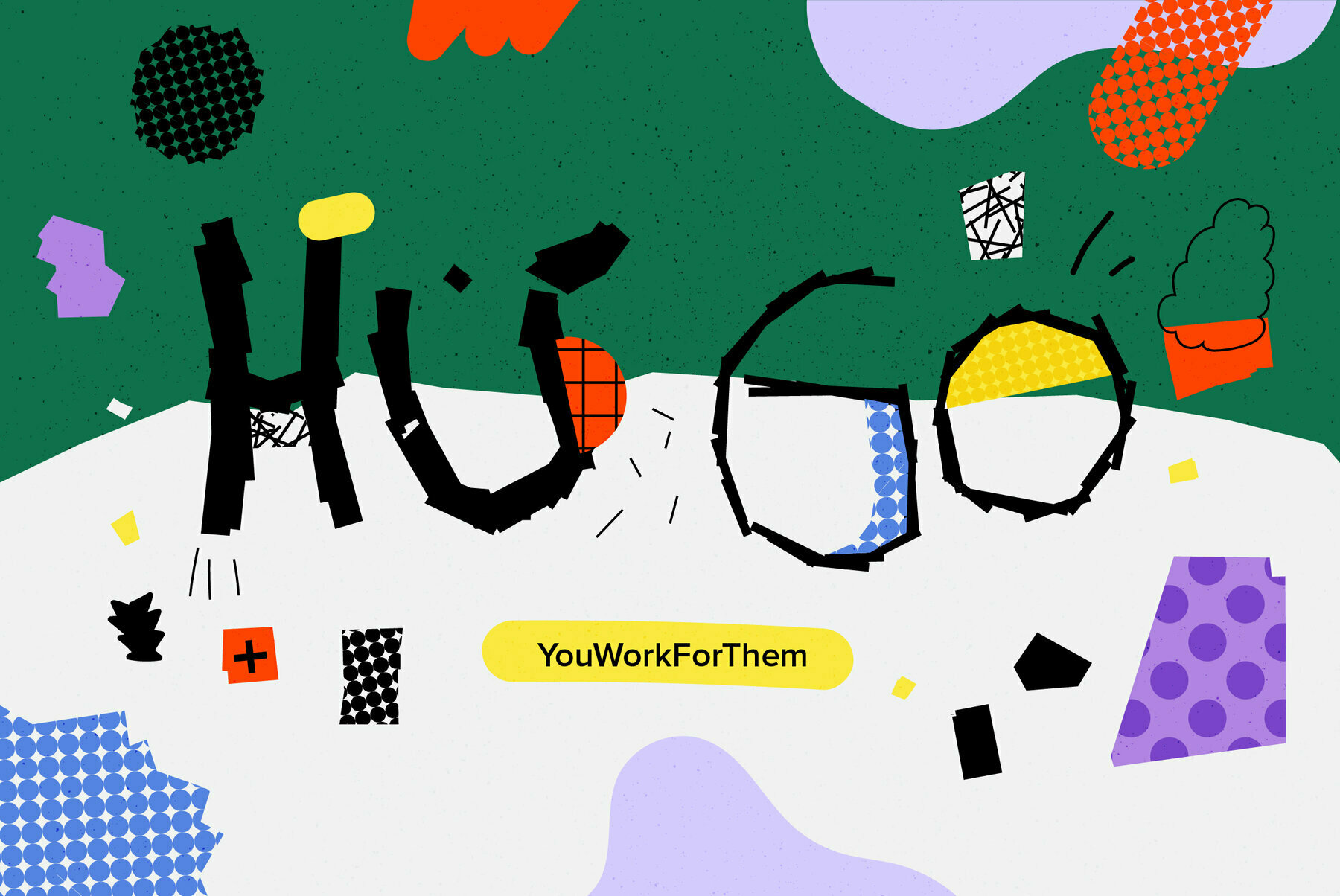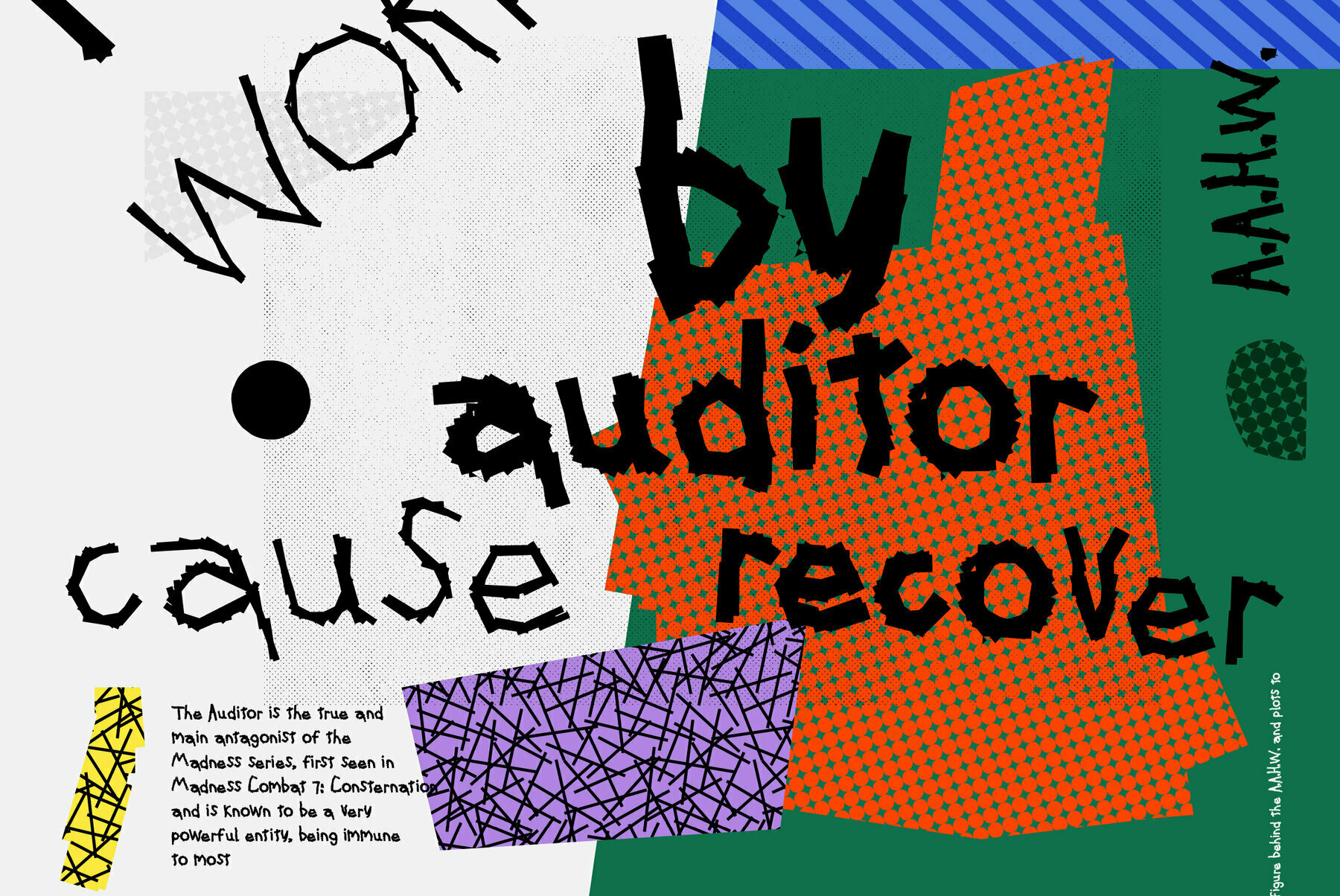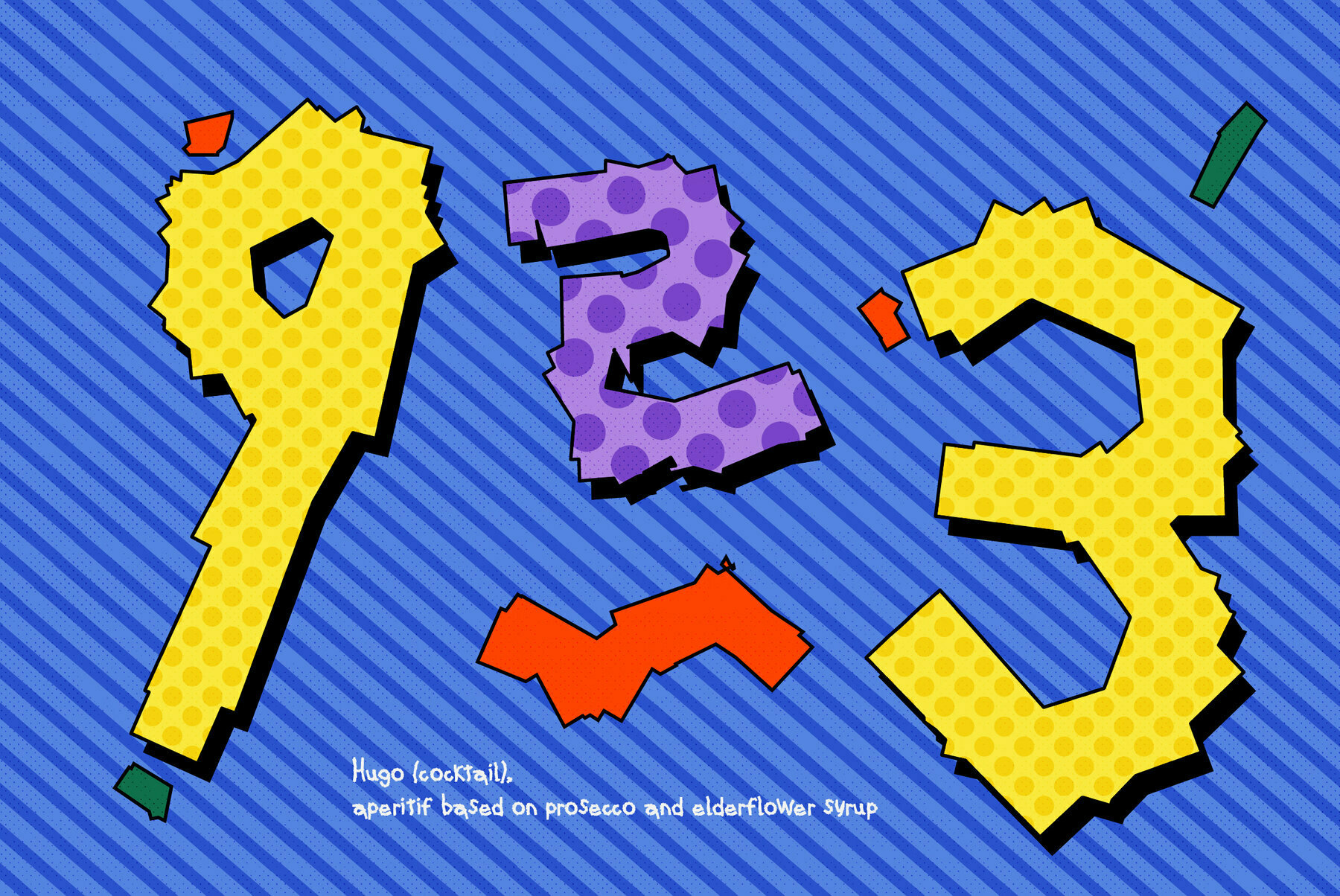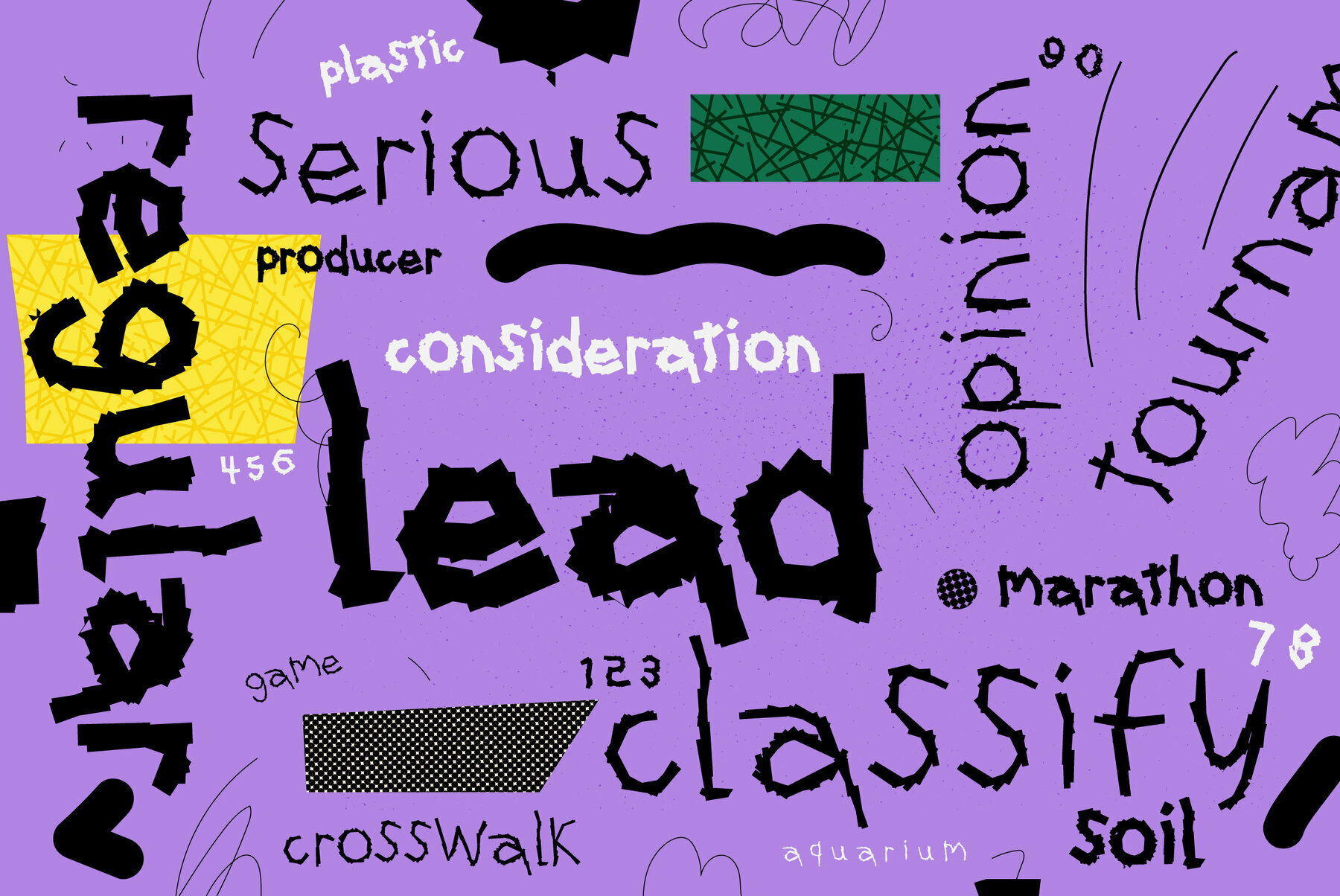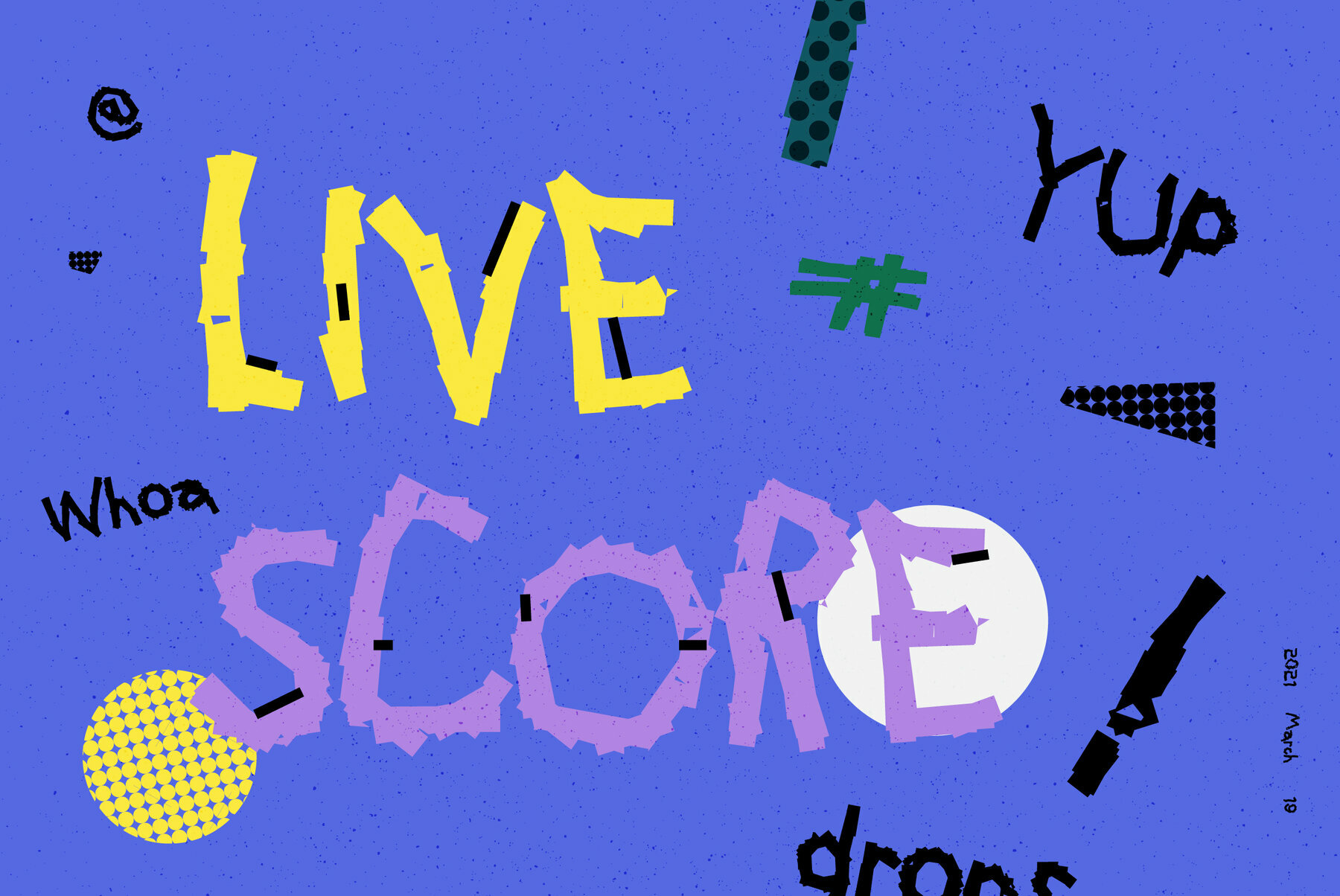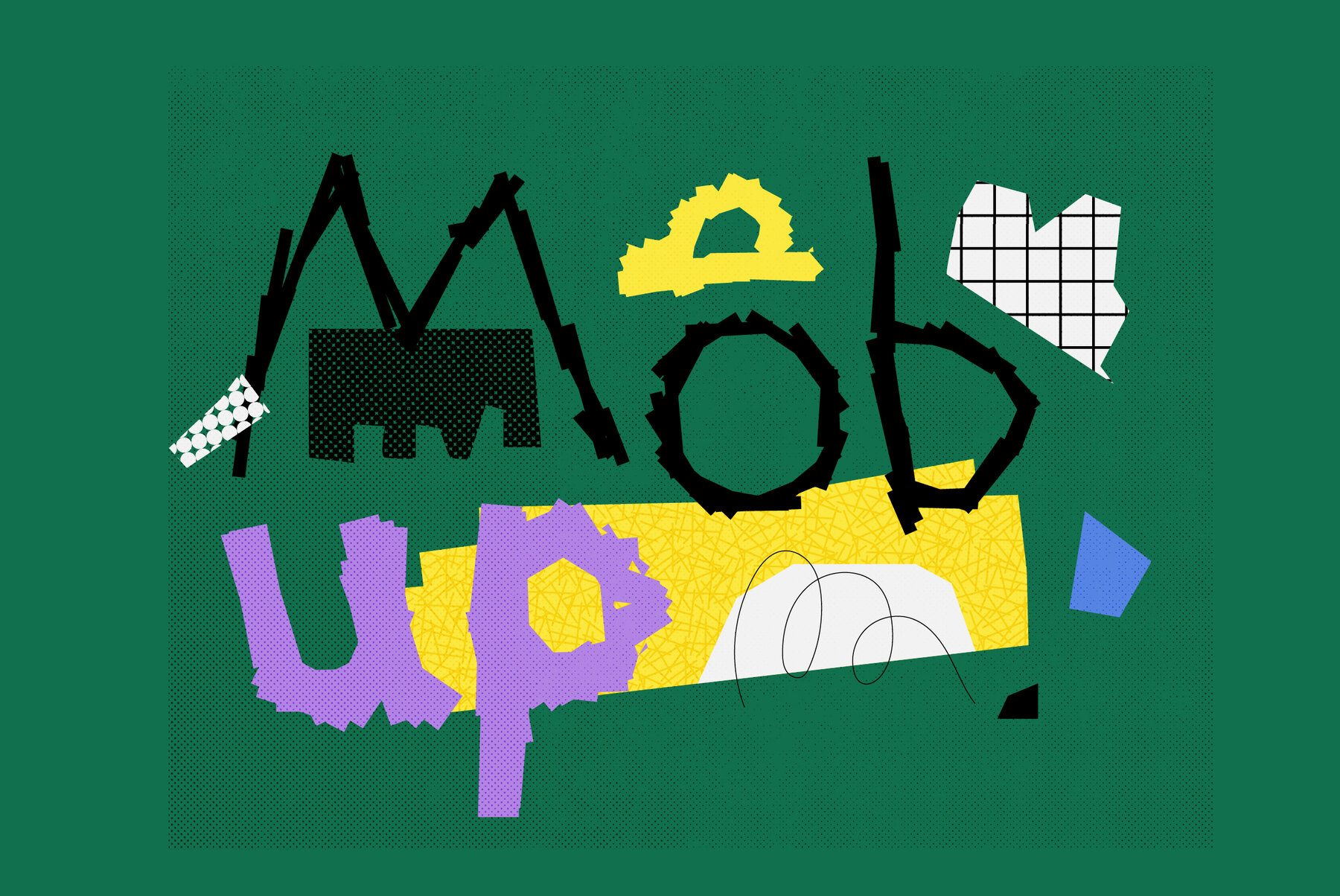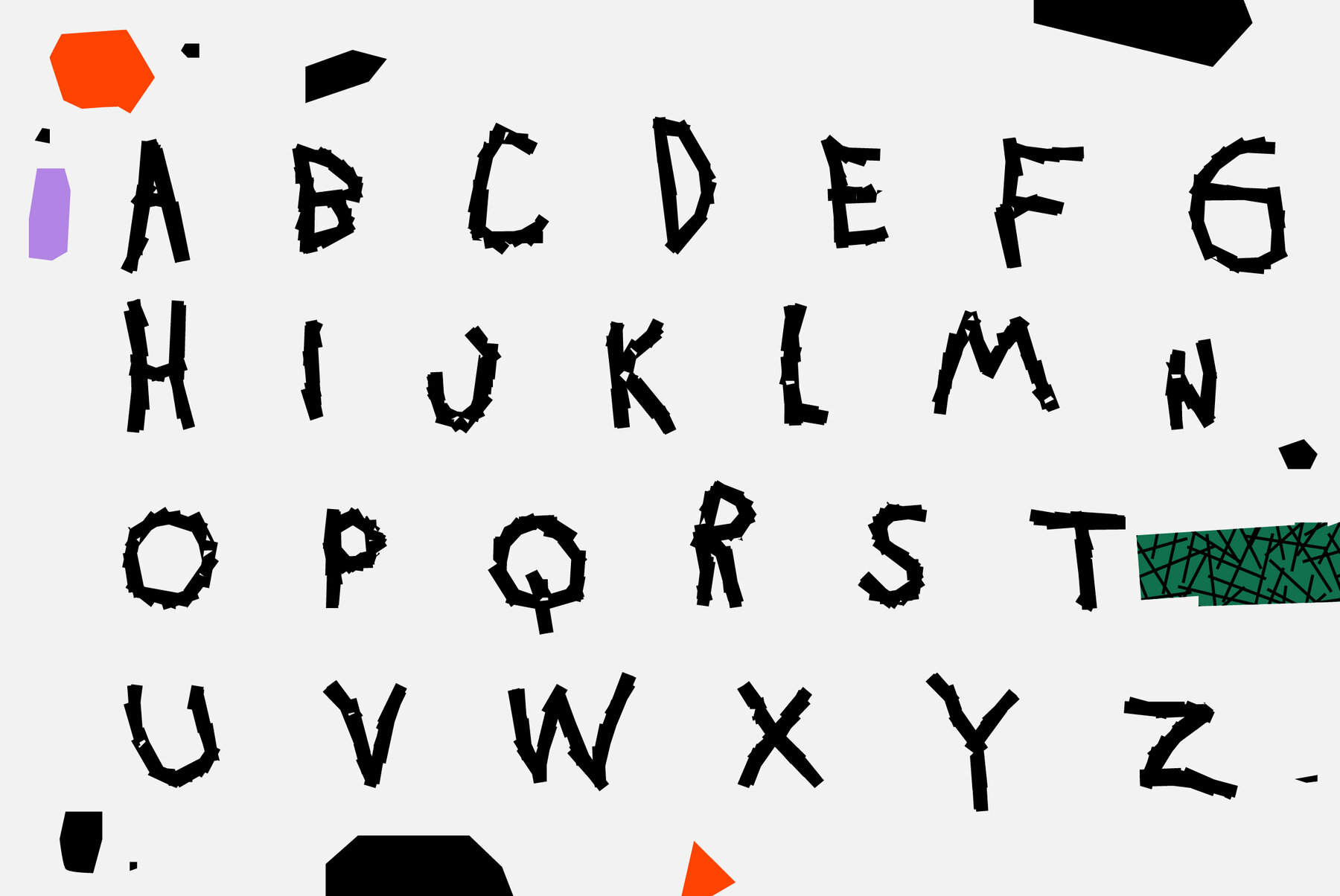
YWFT Hugo Font
YWFT Hugo captivates with its broken, scrawled appearance that both commands attention and stirs curiosity. This font effortlessly merges childlike innocence with an edgy unpredictability, delivering versatility across various design projects. Its haphazardly stacked blocks impart a spontaneous charm, making it an exciting choice for creatives diving into poster art, web design, magazine layouts, packaging, educational materials, and social media graphics. Built with enhanced design adaptability, YWFT Hugo features opentype options like alternates and a vast collection of over 500 glyphs. These characteristics empower designers to explore diverse typographic expressions, ensuring each project shines with unique artistic flair. Perfect for bold, abstract projects, this typeface adds memorable character and depth to any creative endeavor.YWFT Hugo: A Dynamic Typeface for Bold Aesthetics